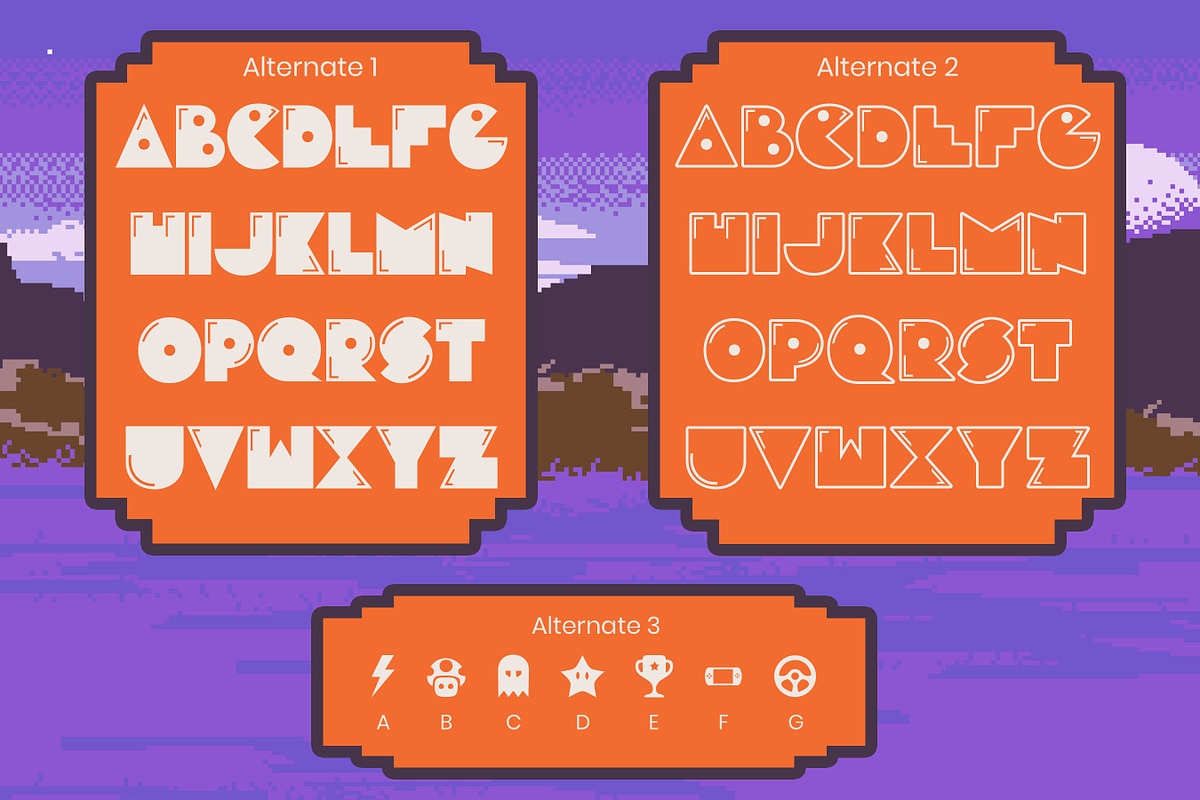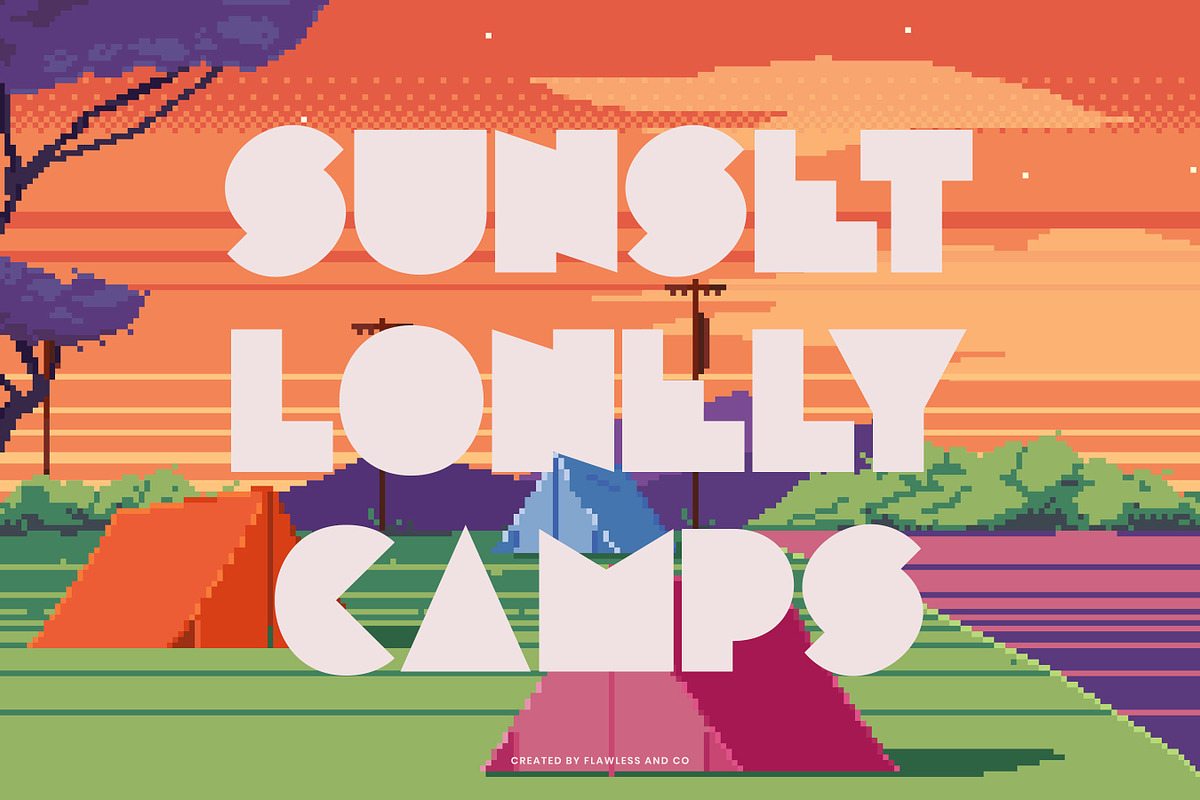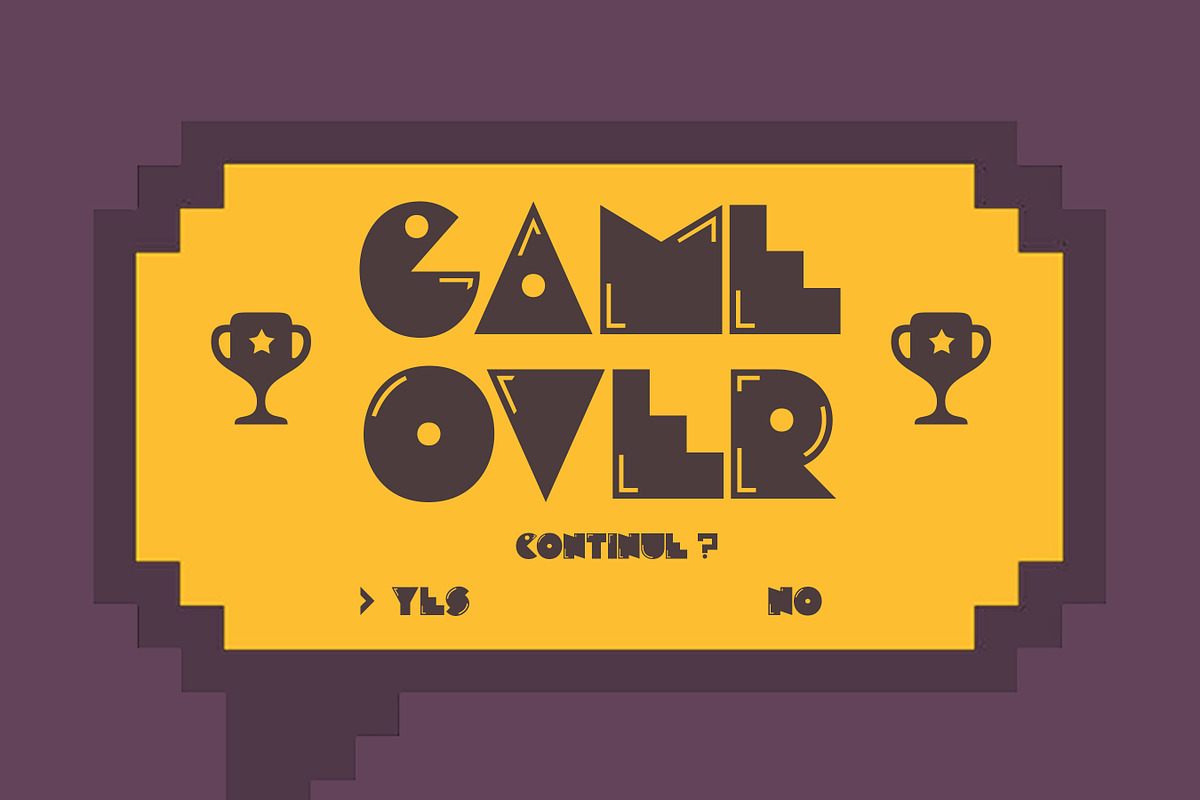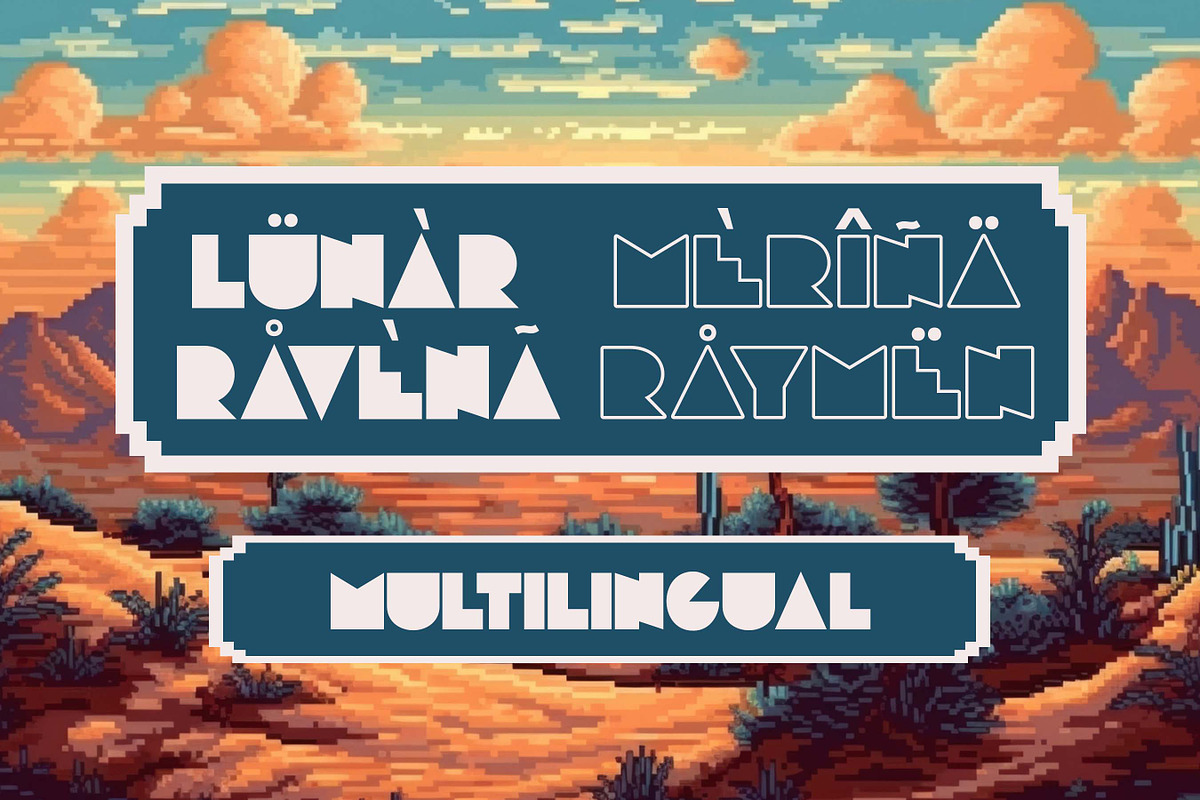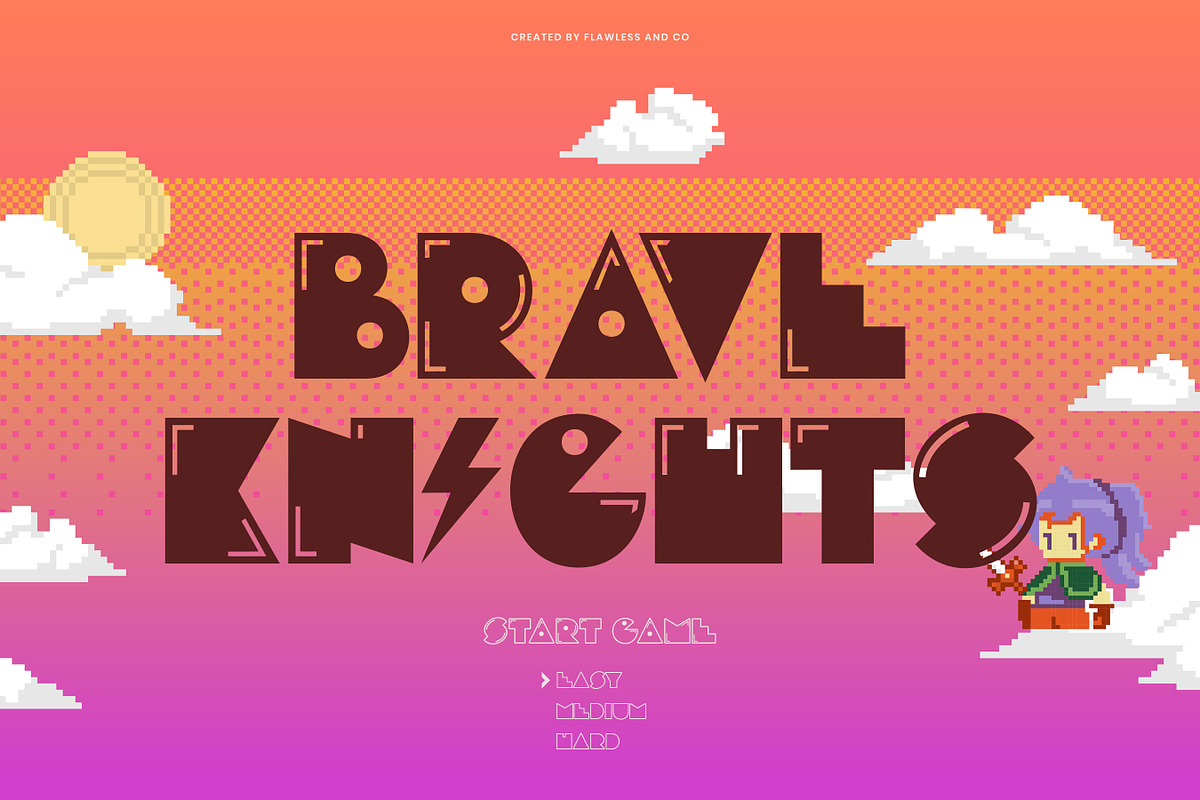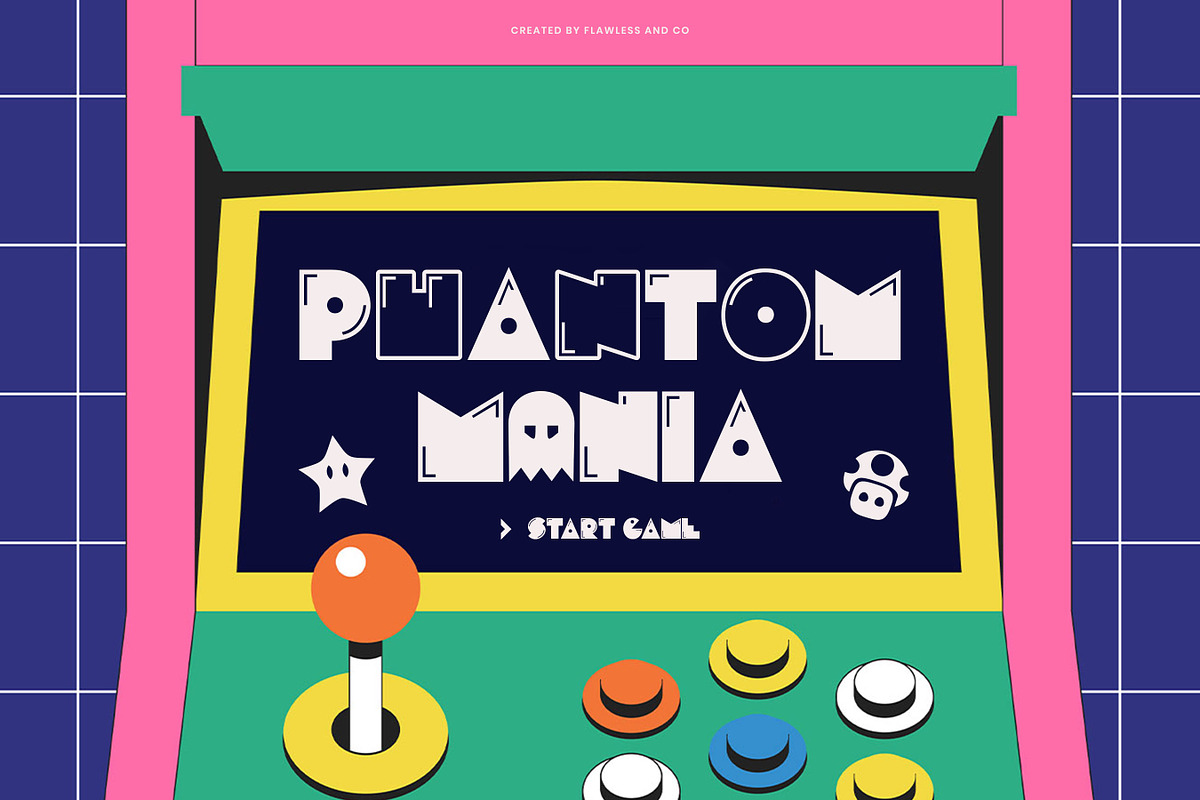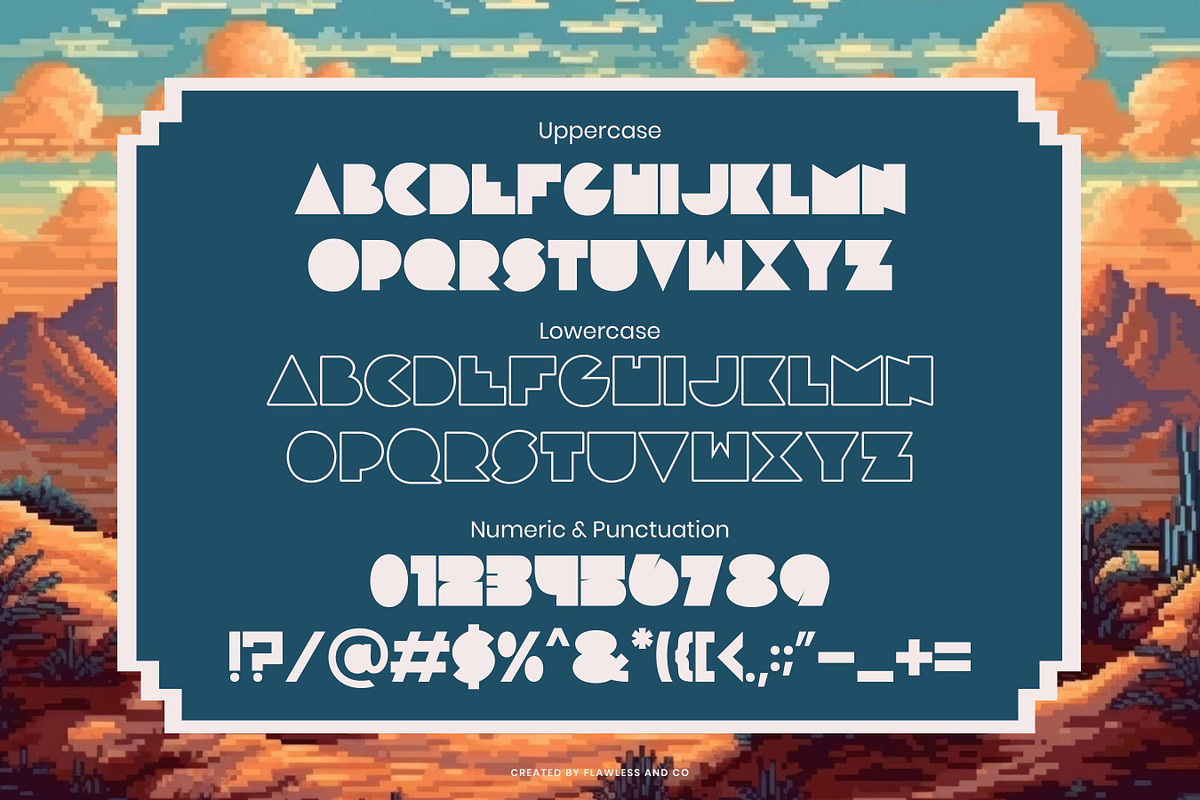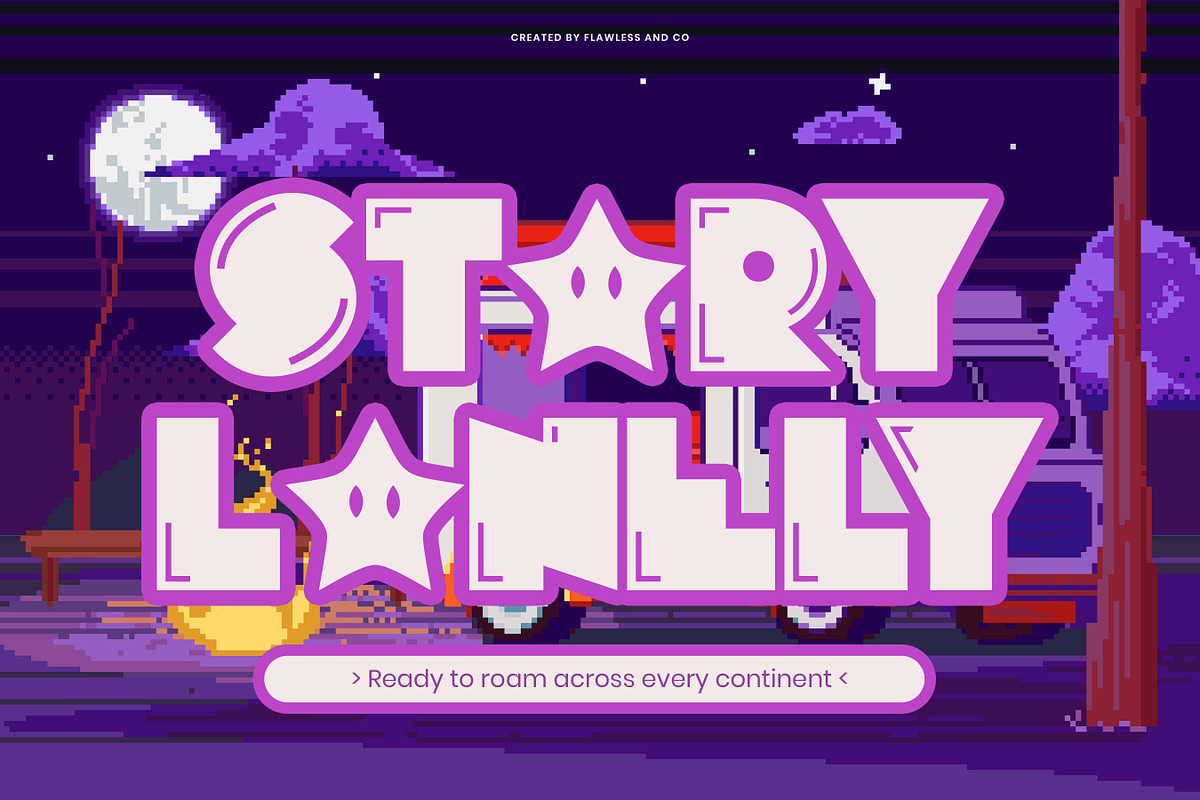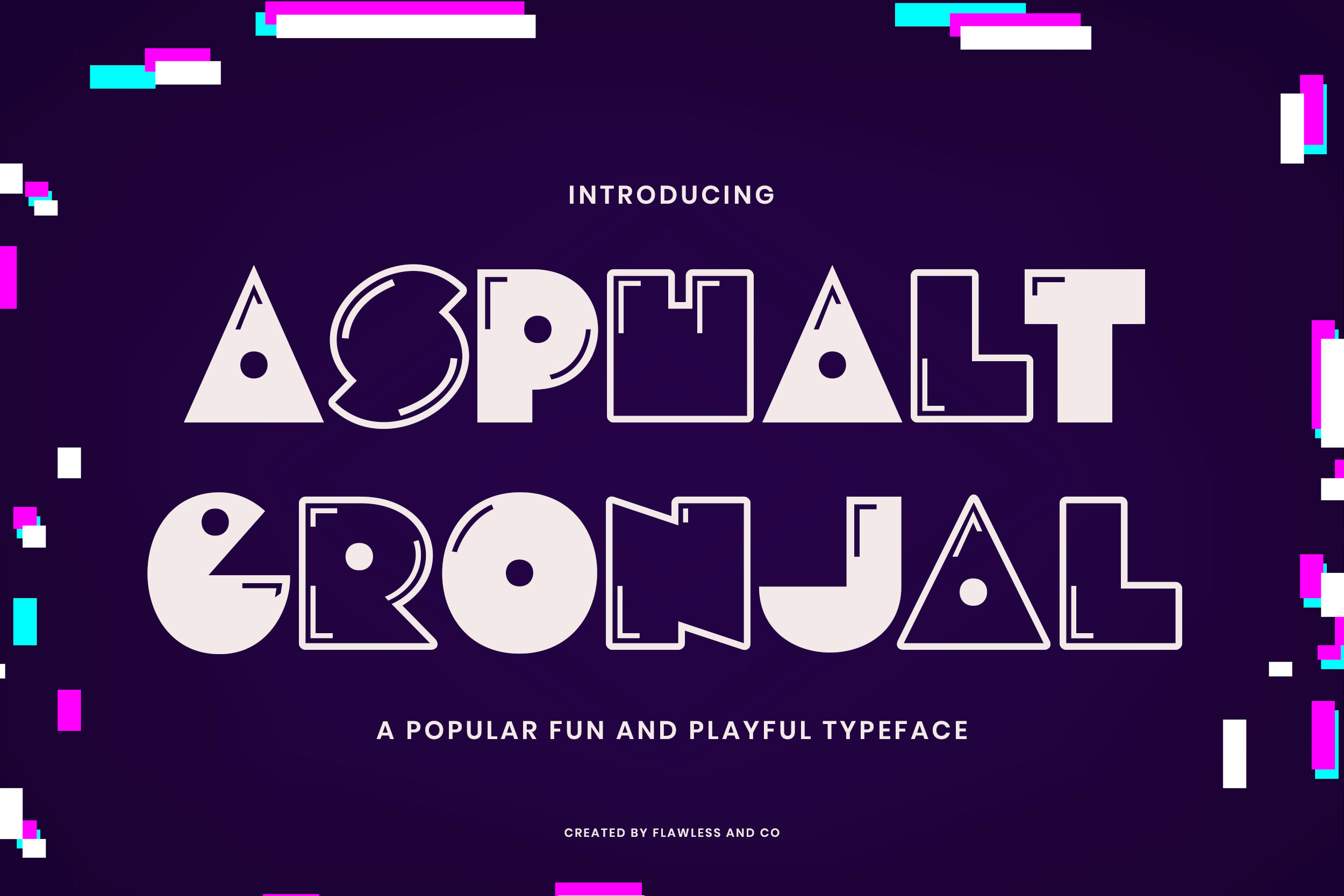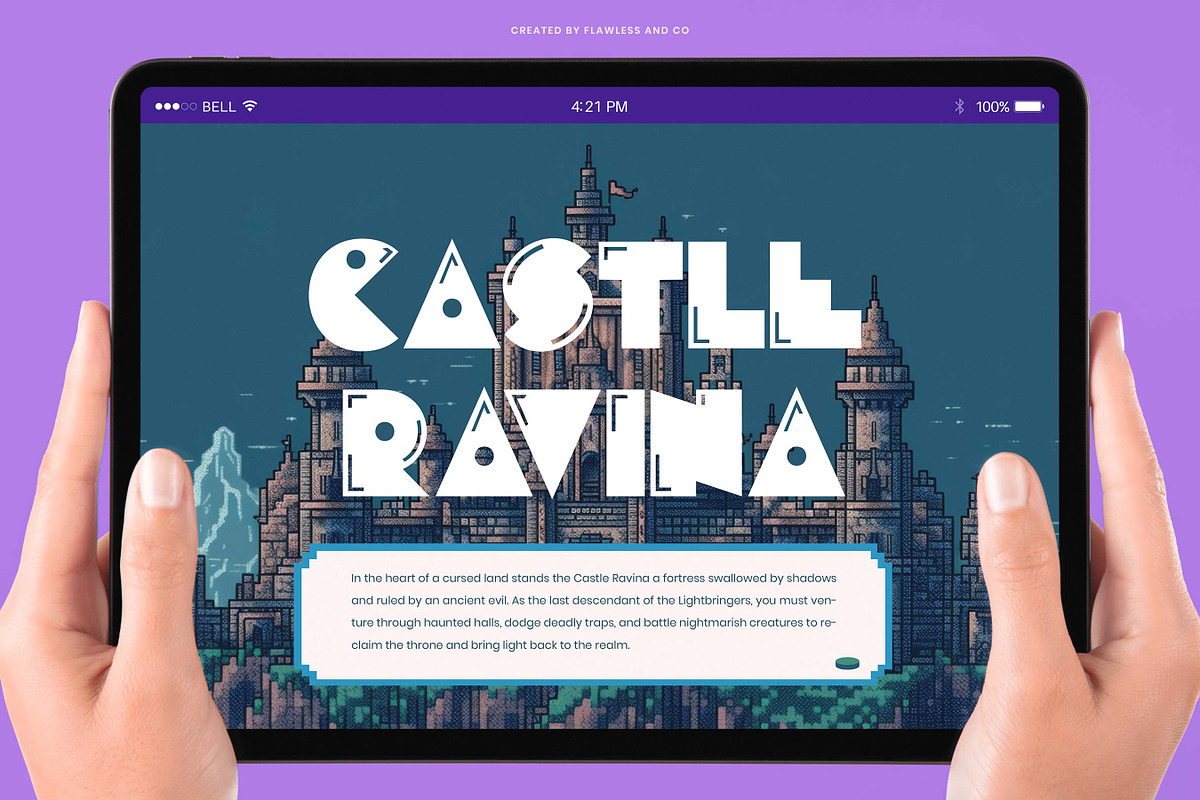
Asphalt Gronjal - Playful Font
Asphalt Gronjal – Playful Game-Inspired Display Font
Asphalt Gronjal Playful is a bold, quirky display font inspired by retro video games and arcade culture. With its geometric forms, pixel-like cuts, and playful energy, this typeface brings a nostalgic charm and modern fun to any design. Perfect for game titles, kids’ branding, playful posters, and digital interfaces, Asphalt Gronjal Playful captures the excitement of classic gaming with a fresh twist. Each letterform is crafted to convey movement and joy, while maintaining clear readability. Paired with its alternate styles and unique shapes, this font lets you explore creative layouts that pop off the screen. Features:
- Uppercase Letters
- Fun Alternates
Ideal for projects that need a touch of fun, nostalgia, and digital flair.
Who Should Use Asphalt Gronjal?
Asphalt Gronjal is the perfect choice for designers, illustrators, and creators who want to bring fun, energy, and a bold personality into their work. With its geometric, glitch-inspired letterforms and playful structure, Asphalt Gronjal offers a fresh, dynamic look that feels both retro and futuristic—making it a standout display font for creative projects that don’t take themselves too seriously.
It’s ideal for:
- Game and app titles
- Children’s books and educational materials
- Creative product packaging
- Poster and merchandise design
- Social media graphics and digital content
A Must-Have Font for Game Designers
Asphalt Gronjal is more than just a typeface — it’s a creative energy boost for your game design projects. With its bold, quirky letterforms and playful personality, this font brings a sense of fun and nostalgia to any visual you create. Whether you’re designing retro-inspired game titles, colorful UI elements, or dynamic splash screens, Asphalt Gronjal delivers eye-catching impact and unmistakable character. It's the perfect addition to every game designer’s toolkit, ready to turn ideas into immersive visual experiences.
Why Choose Asphalt Gronjal for Gaming Projects?
Asphalt Gronjal captures the bold, playful spirit that makes games memorable. Its chunky, fun-loving letterforms are perfect for drawing attention in titles, menus, and splash screens, while maintaining readability across all screen sizes. Whether you’re crafting a retro-style arcade game, a colorful adventure, or a kid-friendly platformer, Asphalt Gronjal brings instant personality to your designs. With its unique style and strong visual identity, this font helps create immersive atmospheres and keeps your gaming visuals engaging and on-brand from start to finish.